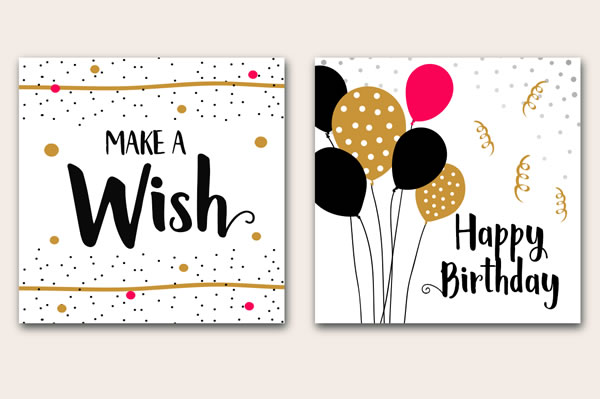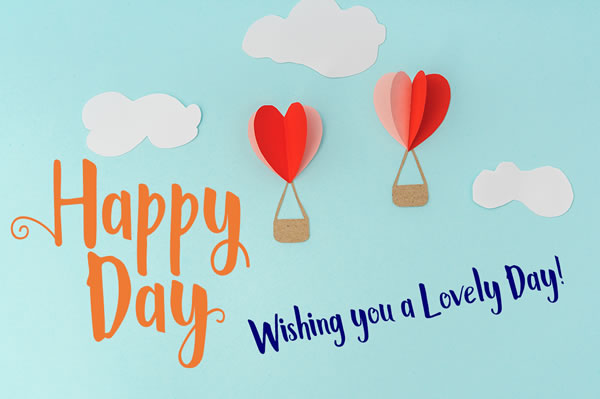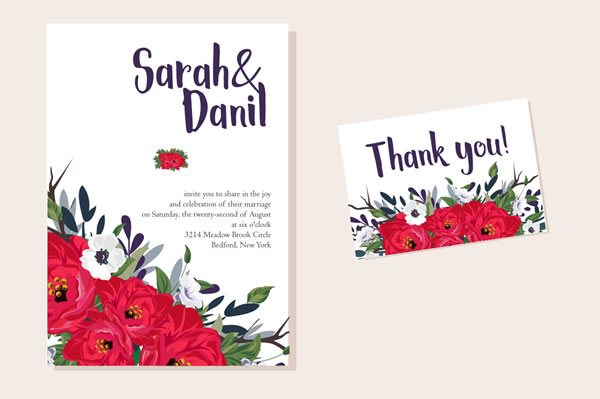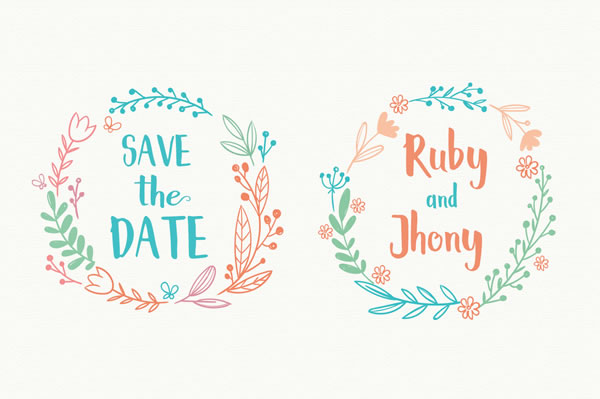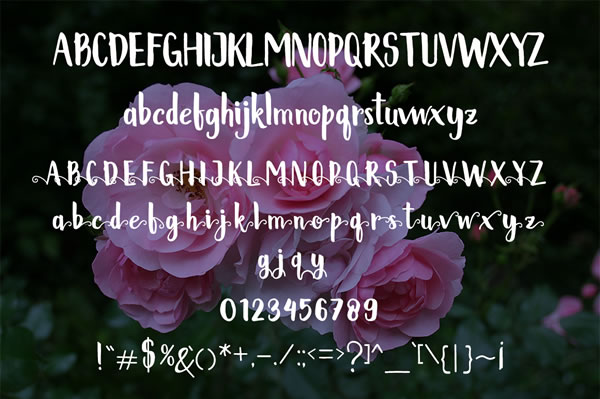
Happy Berry Font
About Happy Berry Font
Happy Berry is a fun handmade font created by JorseCreative.
It’s playful thick letters make this font easy to read. The font also offers alternate characters with swashes.